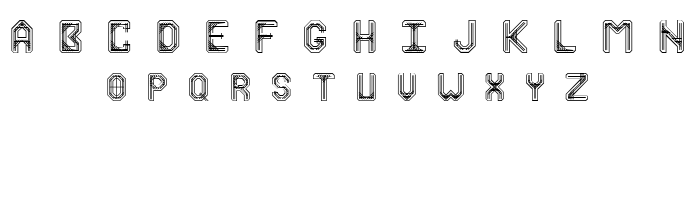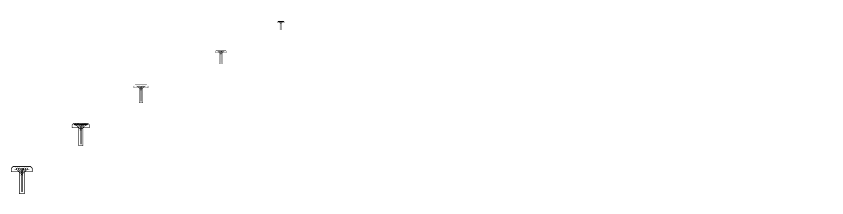
The inspiration to create “Marshall” came from a recent trip I took abroad. Specifically the time I spent in Berlin where I found inspiration from the rich history of all the buildings as well as the detailed reconstruction of them. “Marshall” is developed to emphasize the interior and exterior construction of the letterforms